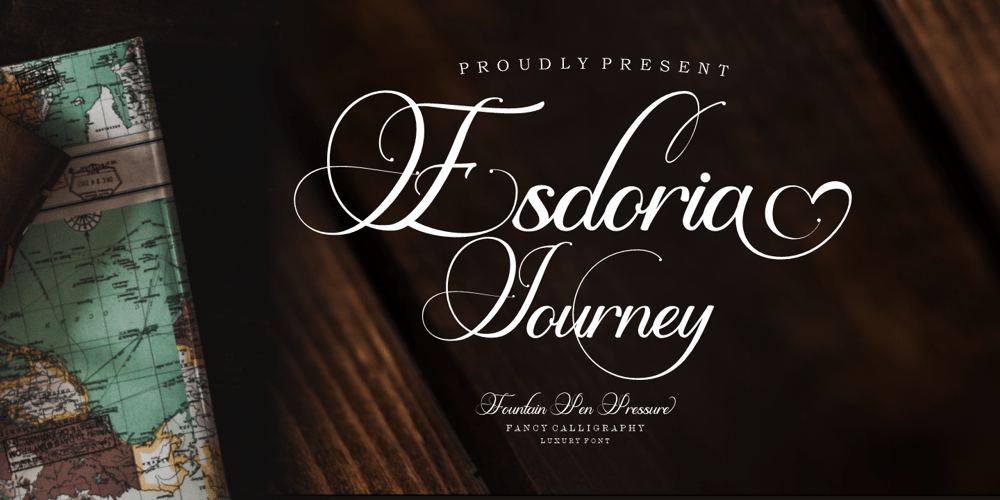
Esdoria Journey Font Family was designed by Joko Setiono and published by Arttype7. Esdoria Journey contains 1 styles and family package options. Esdoria Journy, a font that is inspired by an ancient writing style using a fountain pen.with natural curves and has more than 100 alternatives (ligature, swash, alternative, staylistic 001-006). will make you look like a great script writer.This font is perfect for book covers, notes, magazines, wedding invitations, Valentine’s greeting cards, movie titles, quotes, business cards, photographic watermarks, logos and any design that calls for beautiful handwriting.